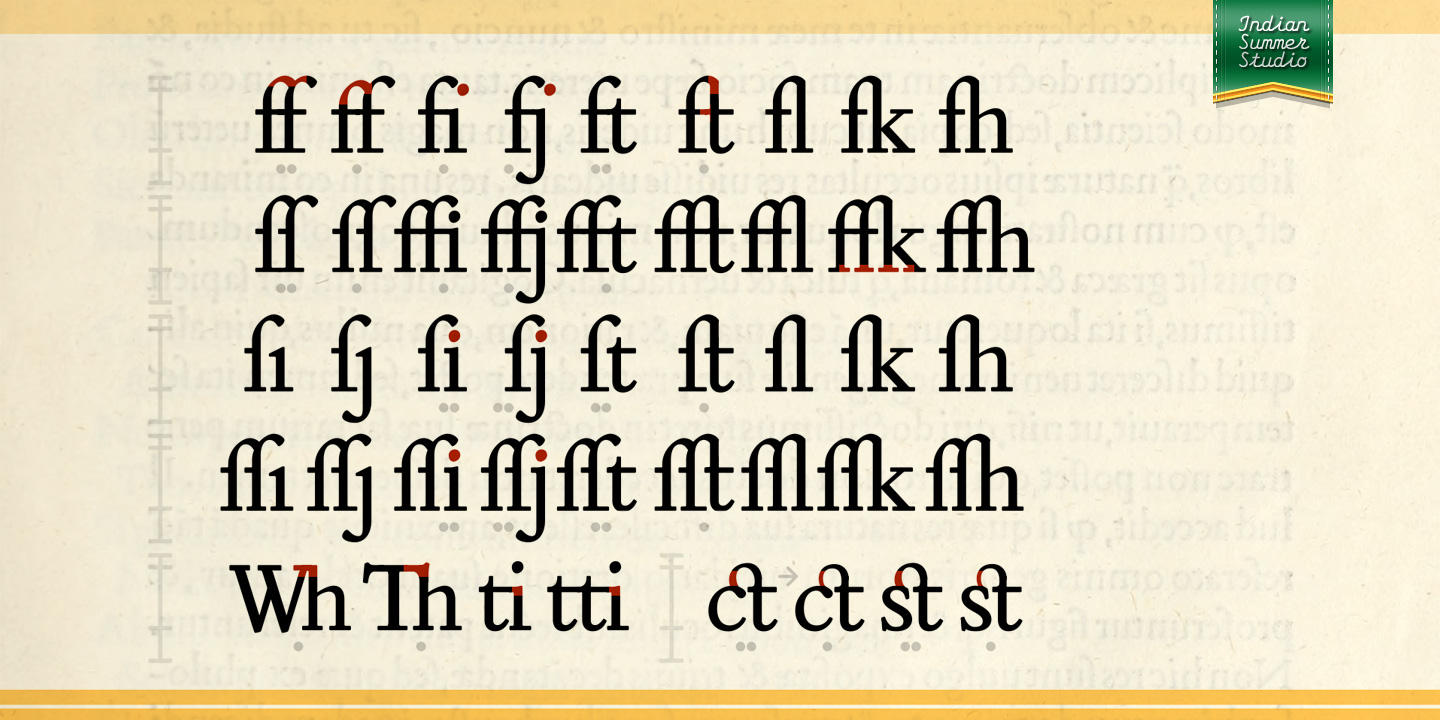
Italian classical scholar, friend of Lucrezia Borgia and many leading figures of the day. He regularized the Italian language itself by publishing grammars. He was made cardinal in 1539.
Monotype gave his name to their typeface Bembo of 1929. The design is based on type cut by Francesco Griffo for the Aldine Press of Aldus Manutius, and first used in Bembo’s work De Aetna in 1495/96.